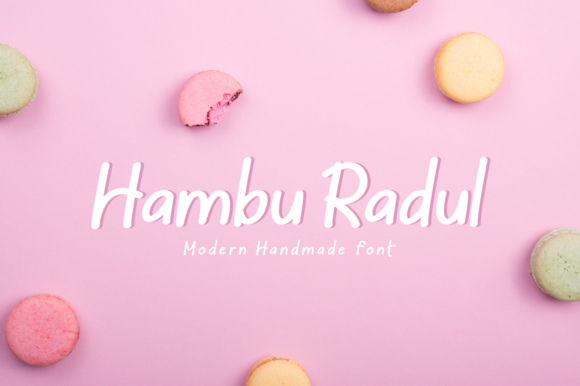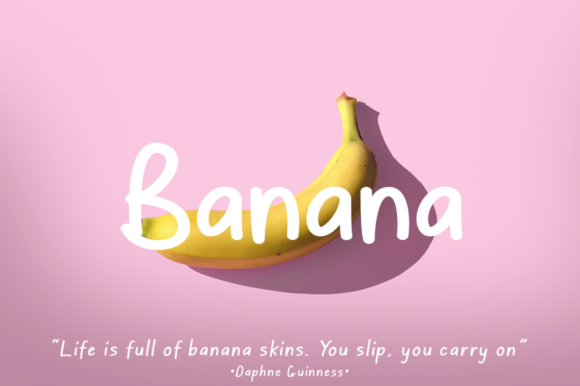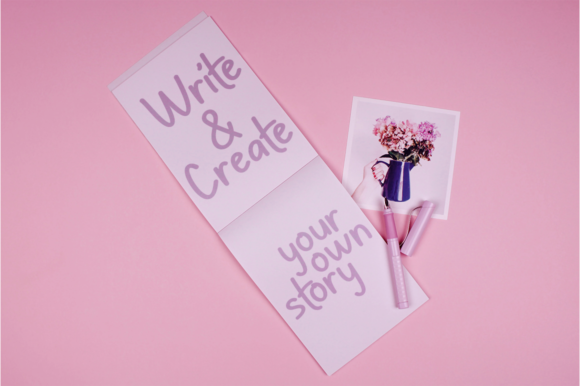
Hambu Radul Font
Hambu Radul is a modern handwritten font with a friendly feel. It will elevate a wide range of design projects to the highest level, be it branding, headings, wedding designs, invitations, signatures, logos, labels, and much more!